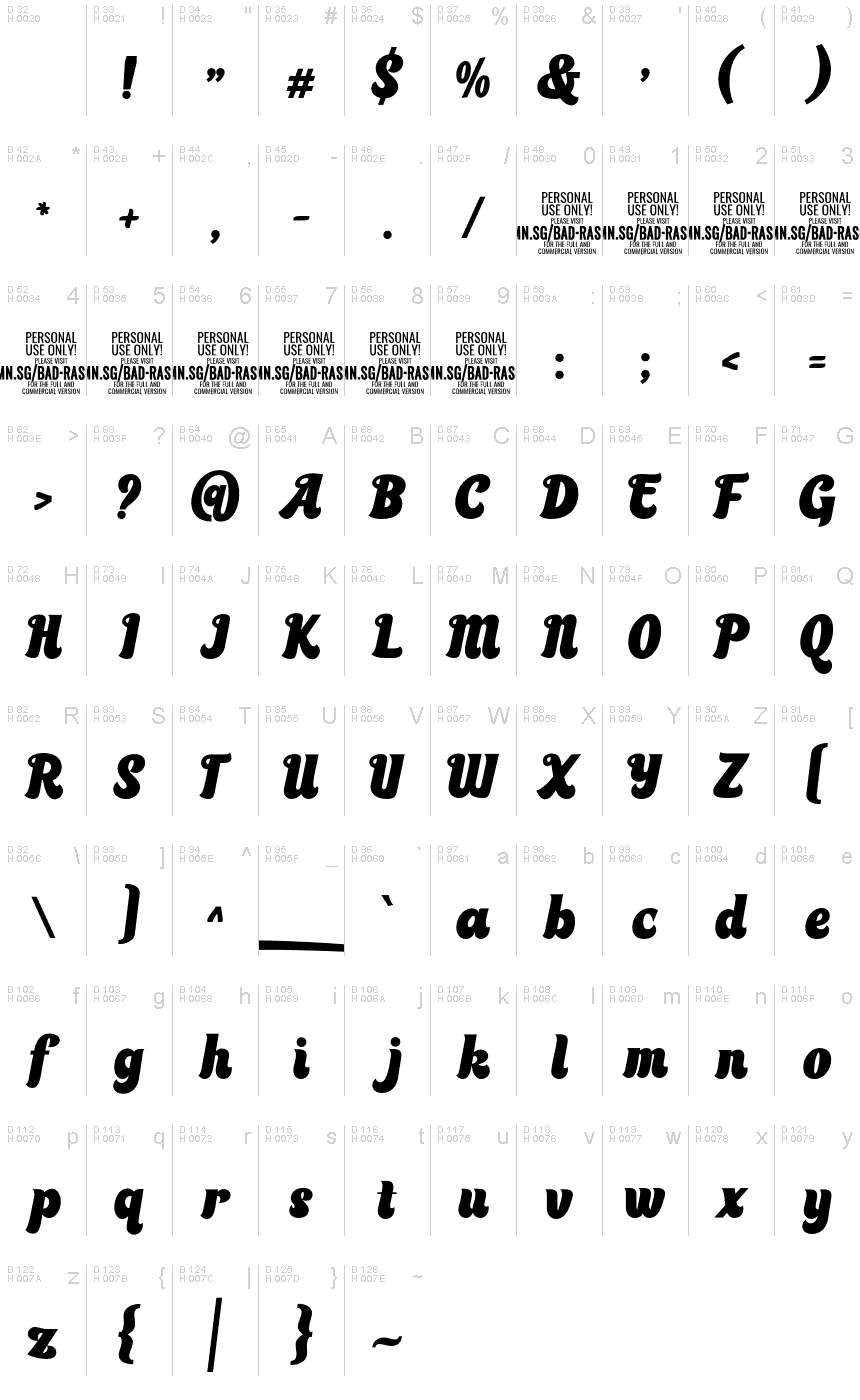
Bad Rascal PERSONAL USE ONLY Regular
Step right up, ladies and gentlemen! Feast your eyes on the Bad Rascal display font. With its cute script style comic and extra-bold weight, this font is perfect for all your quirky and playful design projects. Whether you're creating eye-catching posters, delightful greeting cards or whimsical invitations, Bad Rascal will add a touch of fun to your designs. Designed by the talented Mans Greback, this font is sure to be a crowd-pleaser. So let your imagination run wild and let Bad Rascal bring a smile to everyone's face! Please note that this font is for PERSONAL USE ONLY.
Use underscore _ to make a swash underline.
Example: Powers_
Use multiple underscores to make a swashes of different lengths.
Example: Baddest_______